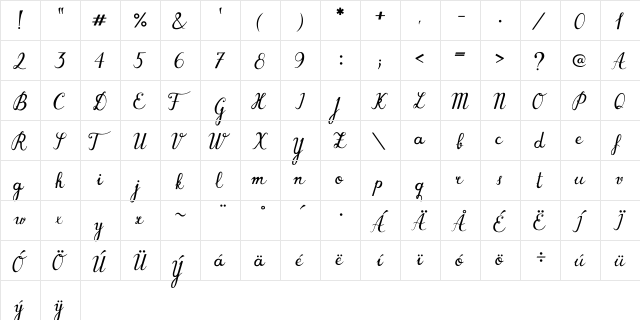
BarForst Regular
Design Context for BarForst Typeface
BarForst is a composed and adaptable typeface that performs quietly and consistently across a wide range of design contexts.